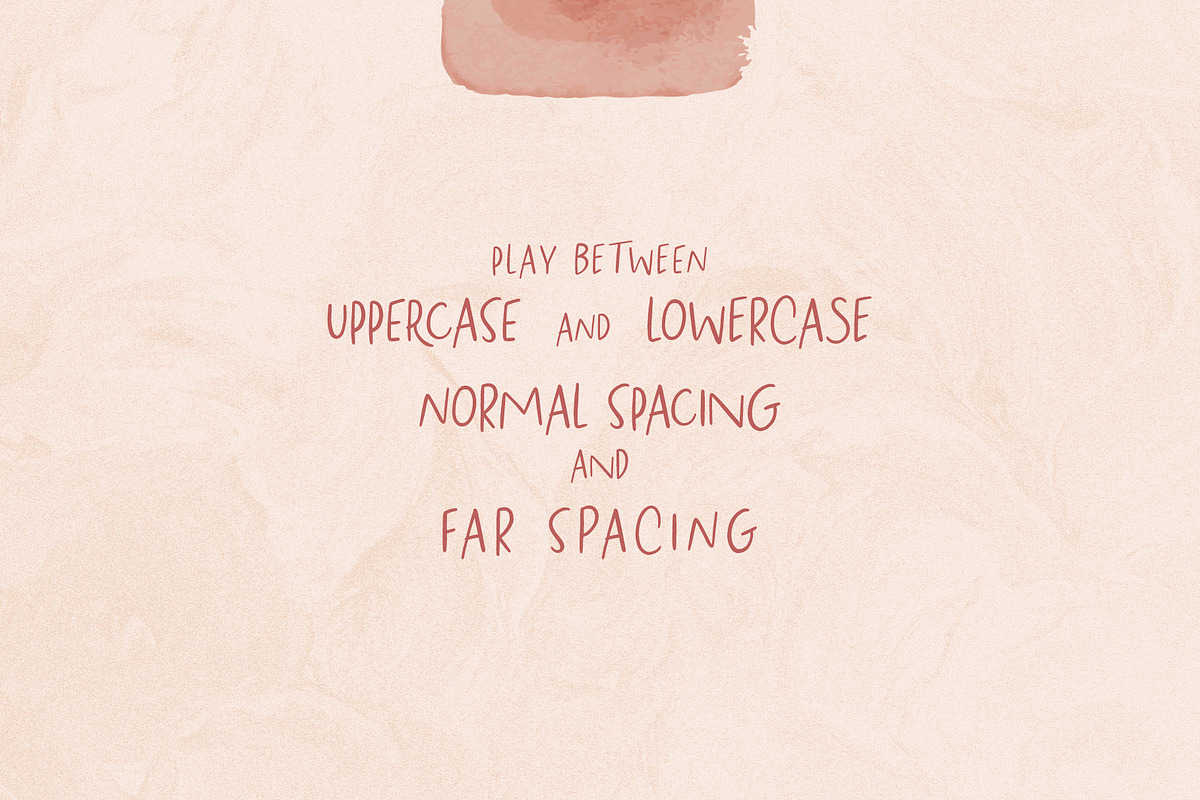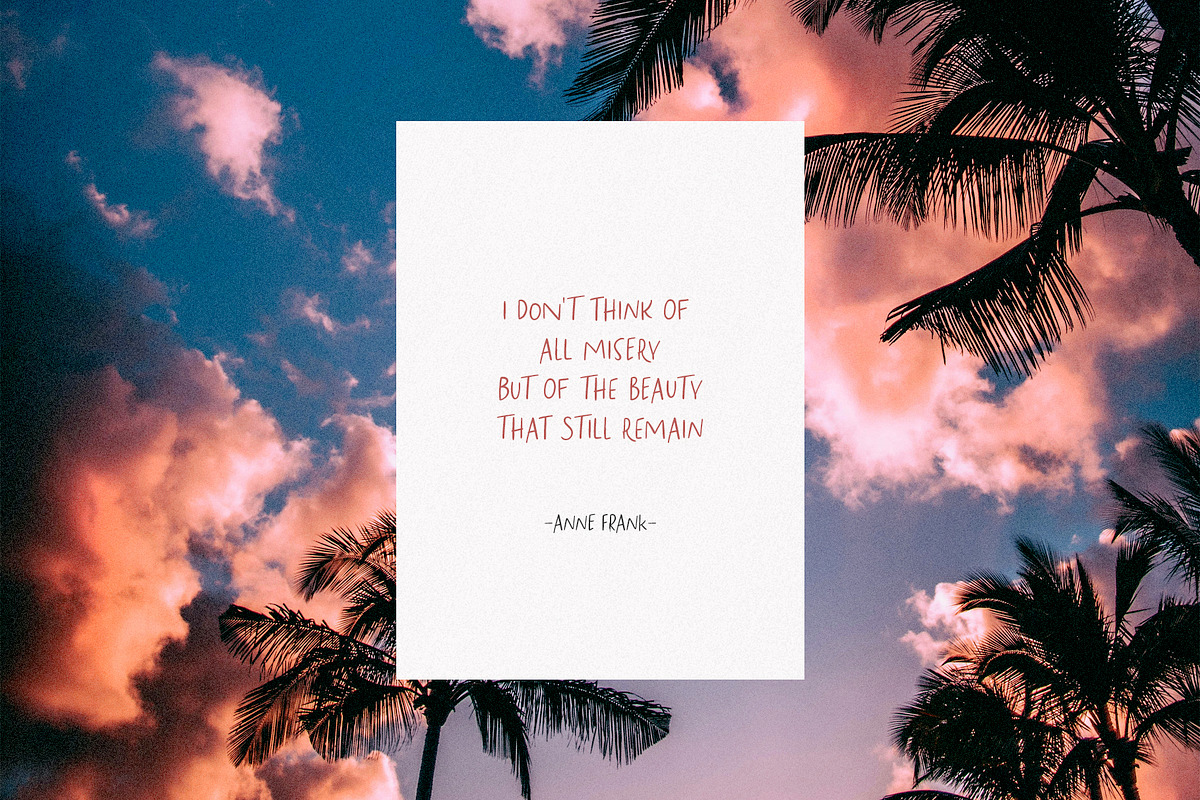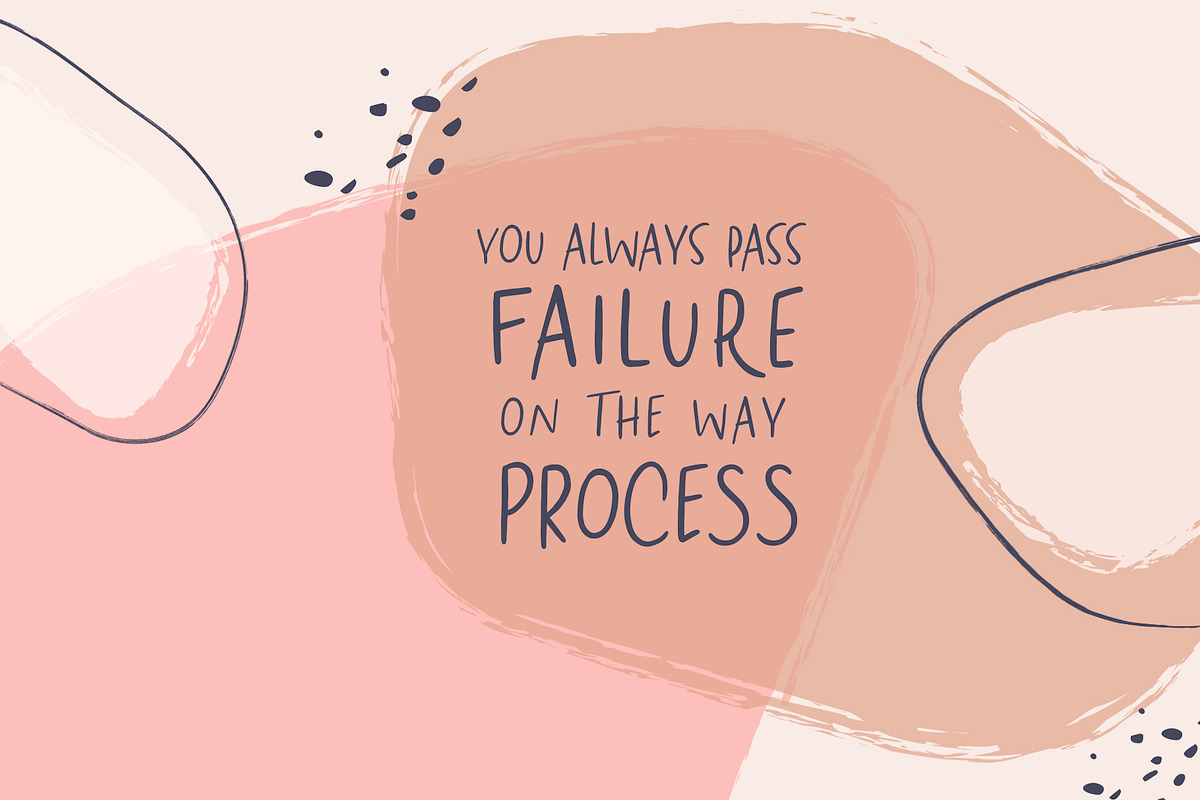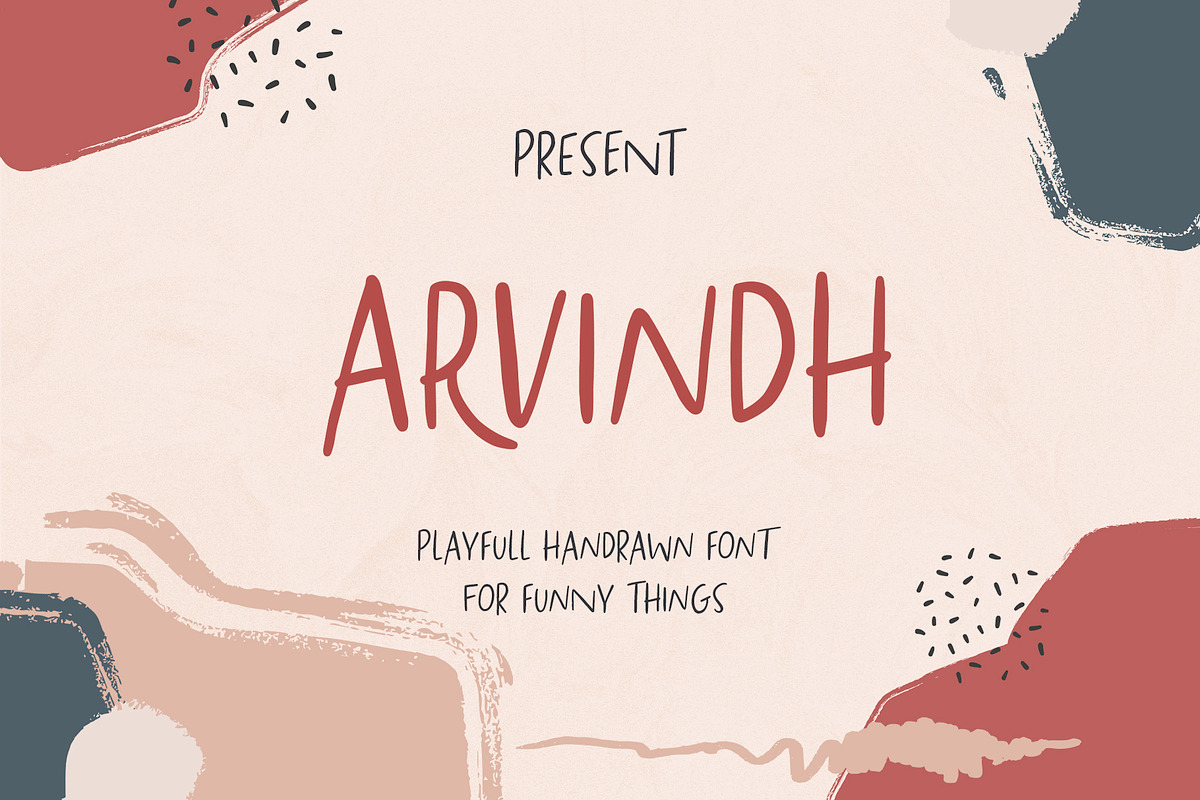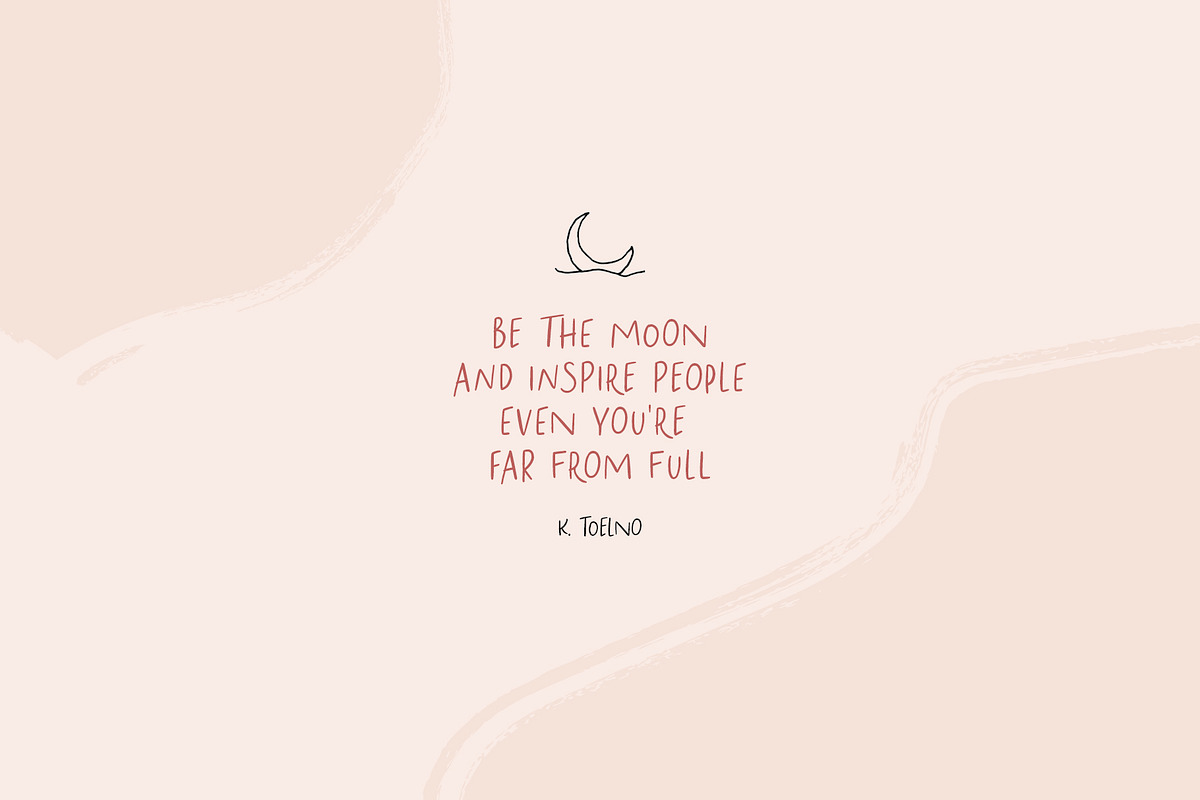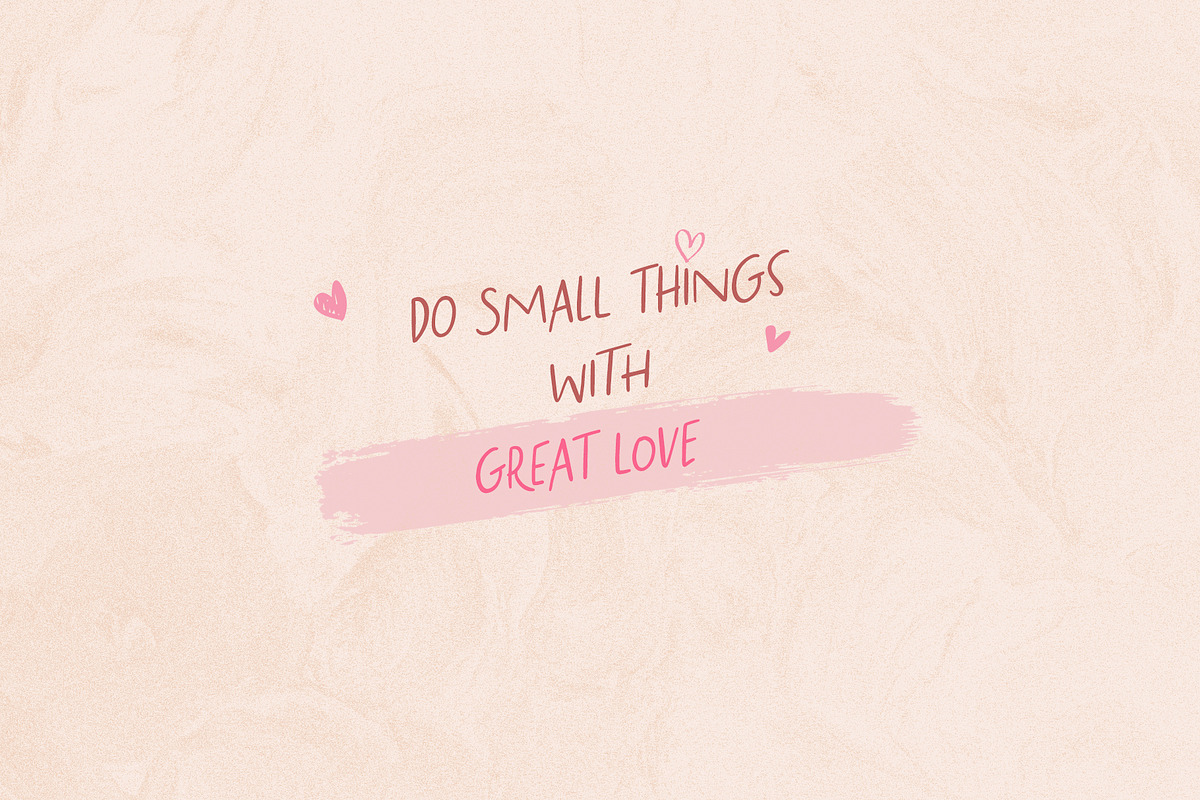
Arvindh Handmade Sans
Say Holla to our little newest font Arvindh Handmade Sans thats actually very beautifull font and playfull. Playing with this font is so funny, just mix between uppercase and lowercase, spacing and voila you'll get different look.
Very suitable for any funny design like greeting card, quotes, notes or anything you want it.